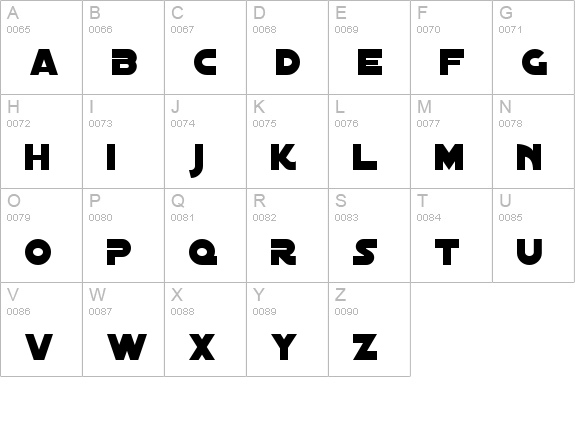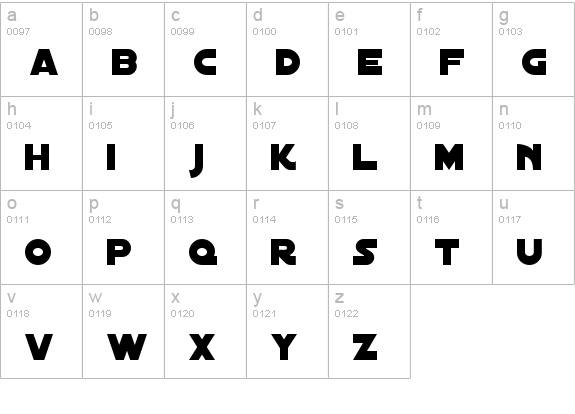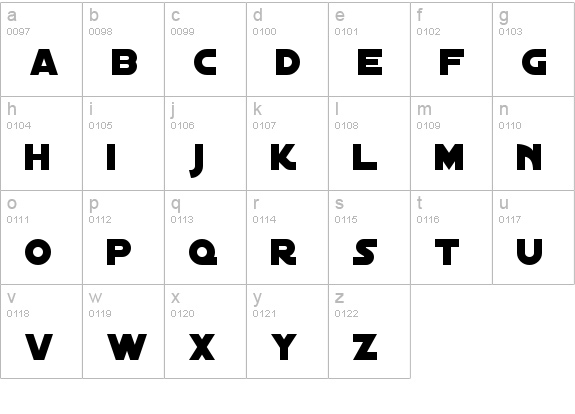
Distant Galaxy font is a stunning and futuristic typeface that will transport your designs to another dimension. With its sleek lines and space-age aesthetic, this font is perfect for projects that require a touch of sci-fi flair. Whether you're working on a science fiction novel cover, a futuristic branding project, or a space-themed poster, Distant Galaxy will bring your designs to life with its bold and captivating style. Best of all, Distant Galaxy font is completely free to download at FontsMarket.com. That's right, you can add this eye-catching font to your collection without spending a dime. Don't miss out on the opportunity to elevate your designs with the otherworldly charm of Distant Galaxy font. Download it today and let your creativity soar to new heights!